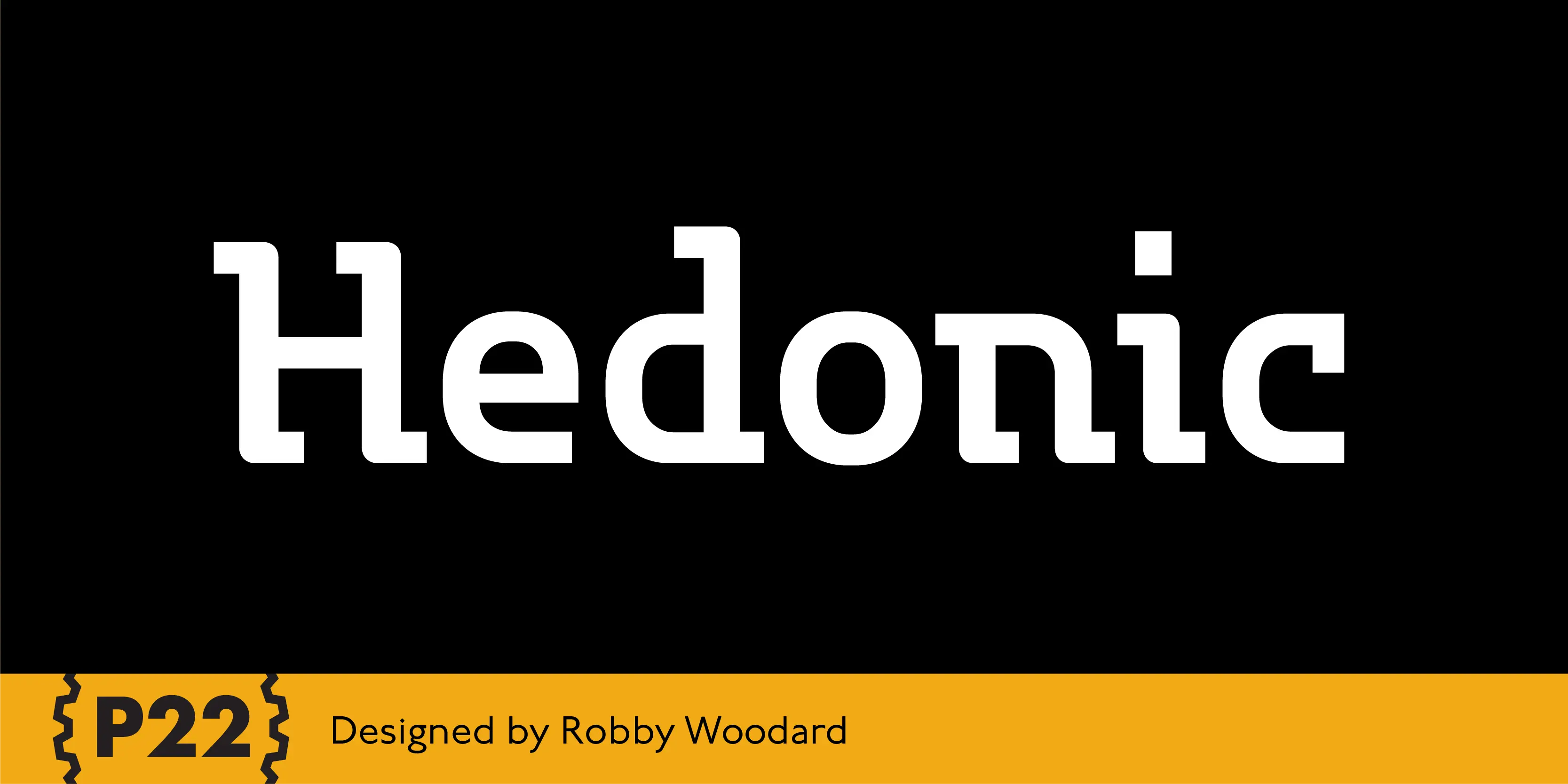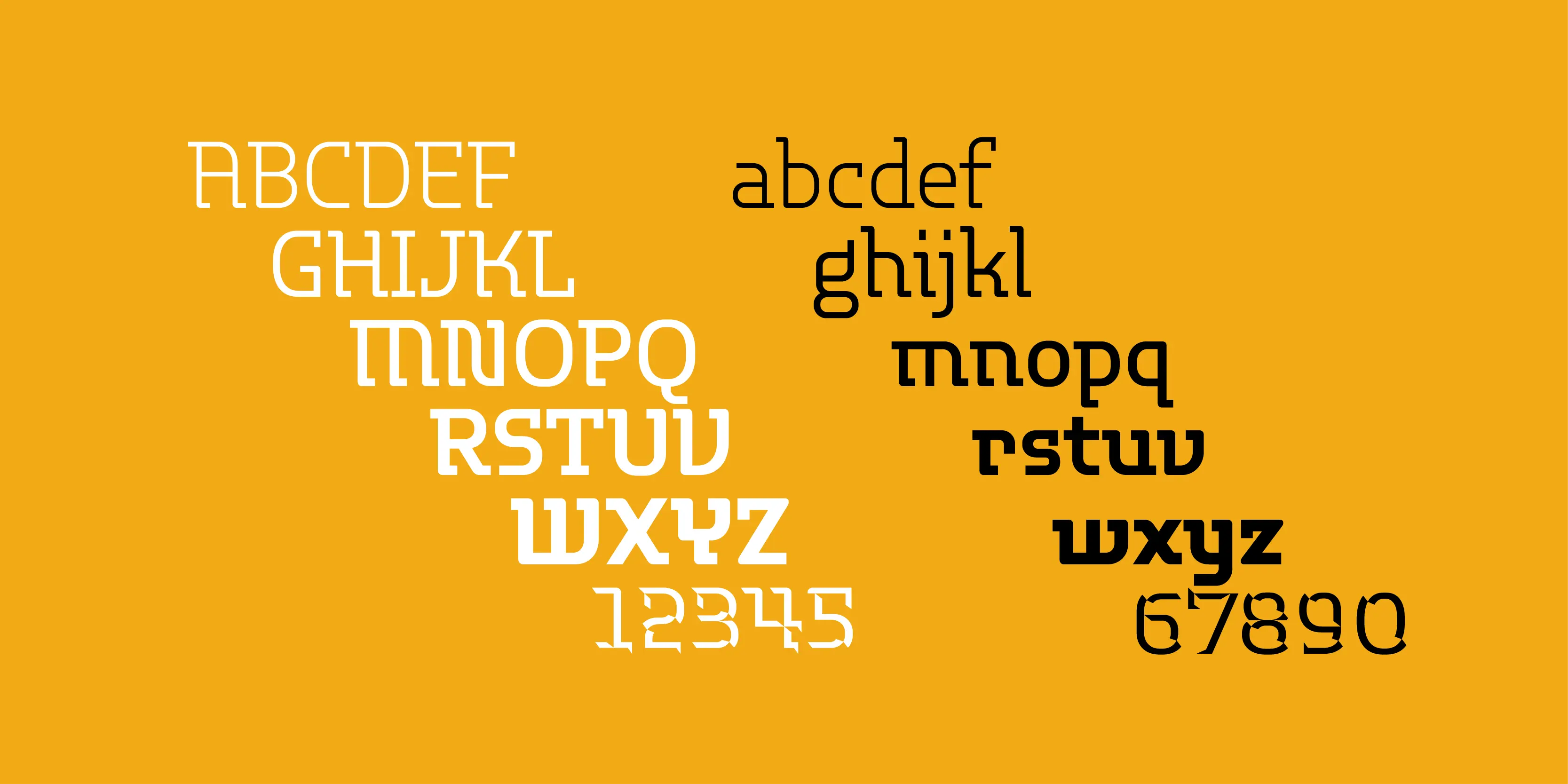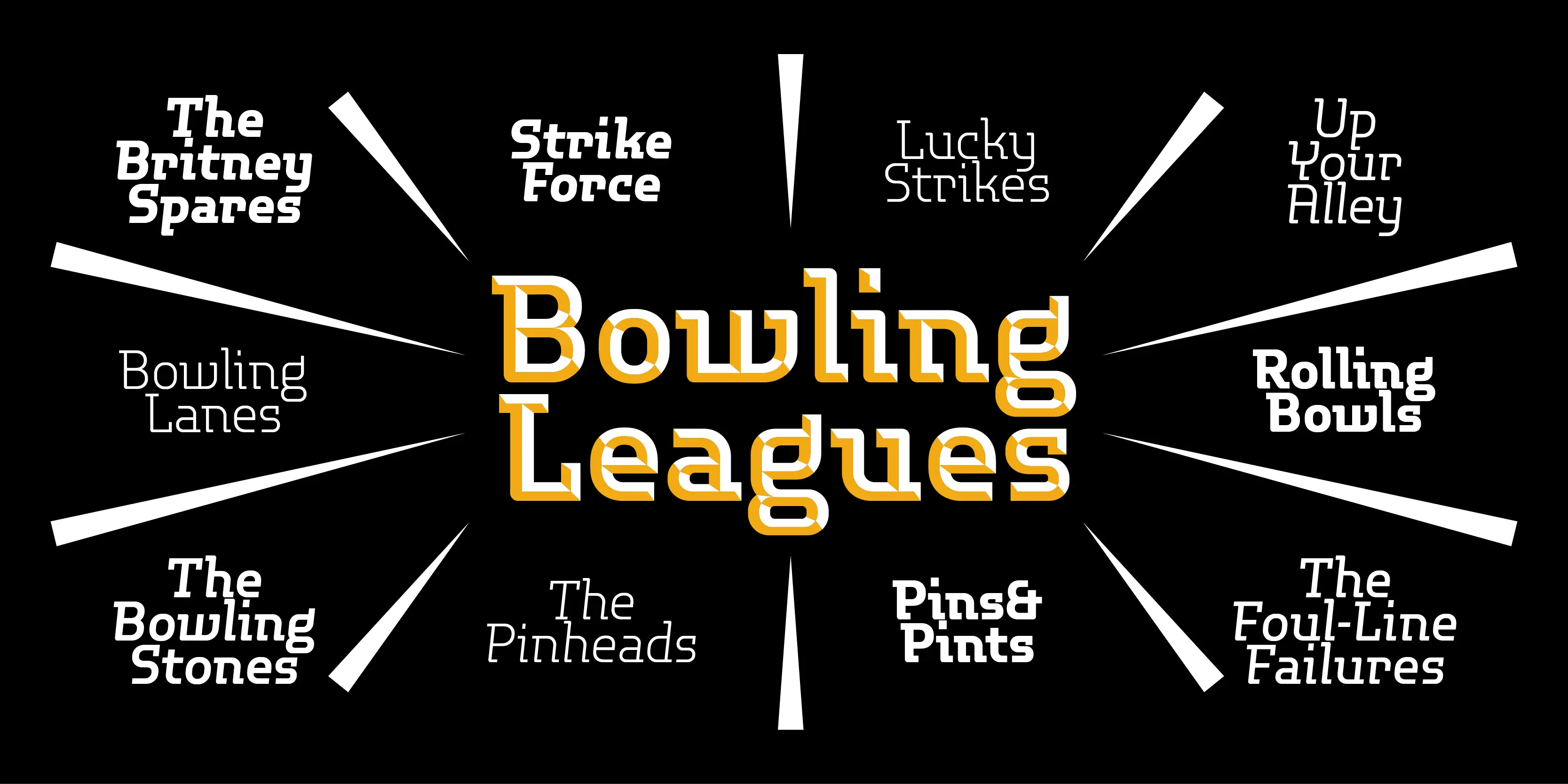
Hedonic Font Family
Hedonic
Hedonic has just a hint of slab serif and even that is used so sparingly that is almost feels like a sans serif font. Its design does appear to be painfully simple but there are many interesting features including a selection of weights, small caps with old style numerals that make it very useful and legible. Each font contains over 580 characters. The 2-part Chisel font has a more modest character count but is offered as a set for a special price.
• Fractions
• Lining Numerals
• Old Style Numerals
• Ordinal Numerals
• Proportional Numerals
• Small Capitals
• Small Capitals for Capitals
• Tabular Numerals